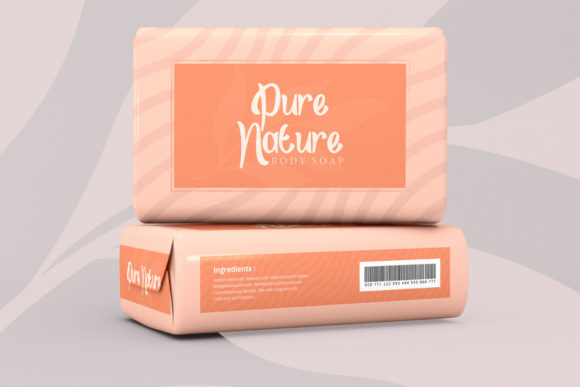
Senjakala Font
db-ku.com - Script & Handwritten -- Senjakala is a trendy and chic handwritten font. It is perfect for product packaging, branding project, magazine covers, social media, wedding, or just used to express words above the background.